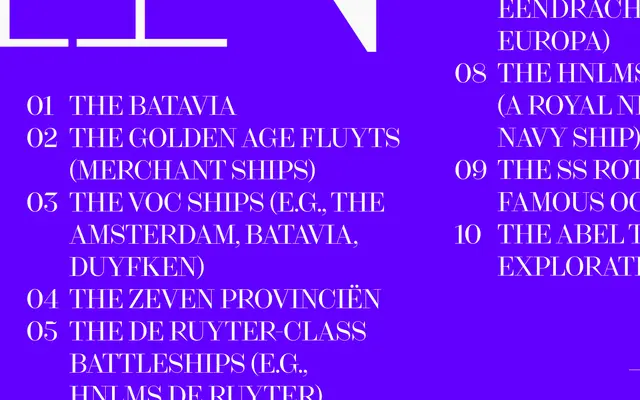
Kreol Display specimen from Studio Rene Bieder
A display-optimised humanist sans forming the largest optical size in Studio René Bieder's three-part Kreol family.
Kreol Display sits at the top of a three-member optical size system alongside Kreol Standard and Kreol Text, offering fourteen styles across seven weights from Thin to ExtraBold with matching italics. The character set includes small capitals, oldstyle figures, case-sensitive forms and a range of alternate glyphs for a, g, y, J, Q, R and arrows. The feature set makes it practical for editorial and identity work at headline scale without relying solely on weight contrast.
Kreol Display presents as a humanist sans-serif intended for display-scale use, with optical sizing positioning it alongside companion Text and Standard subfamilies within the broader Kreol family.